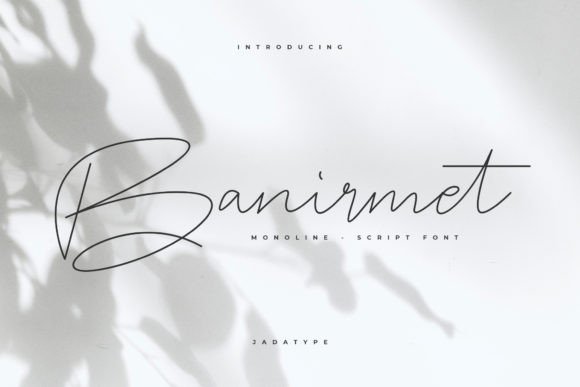
Step into the world of Banirmet, a script font that dances on the page with its thin monoline grace. This masterpiece by Jadatype is not just a collection of letters, but an invitation to express yourself with unparalleled elegance. Banirmet's enchanting style captures the essence of handwritten signatures, evoking a deeply personal touch that elevates any creative project to new heights.
Immerse yourself in the versatility of Banirmet, effortlessly adapting to your artistic vision. Whether you're crafting a captivating logo that leaves a lasting impression, or designing social media posts that radiate sophistication, Banirmet harmonizes perfectly. Its charm extends to product packaging, where it adds a touch of exclusivity, and advertising campaigns that crave a dash of uniqueness.
With Banirmet, you're not just adding text, you're painting emotions onto the canvas of your creations. Its flowing lines mimic the strokes of a paintbrush, conveying a sense of artistry and passion that captivates audiences. The carefully crafted ligatures, adding a touch of fluidity and cohesion, enhance the overall aesthetic appeal.
Enhance your multilingual projects with Banirmet's inclusive character set. It gracefully supports standard English letters, numbers, punctuation, along with a diverse range of accents that embrace multilingualism. This global appeal enables you to connect with audiences across borders, conveying your message with clarity and cultural sensitivity.
Banirmet isn't just a font; it's an experience that transforms your designs into exquisite works of art. Let your imagination soar and embrace the allure of this script font, leaving an indelible mark on the world of aesthetics. Download Banirmet today and embark on a journey of artistic expression like never before.